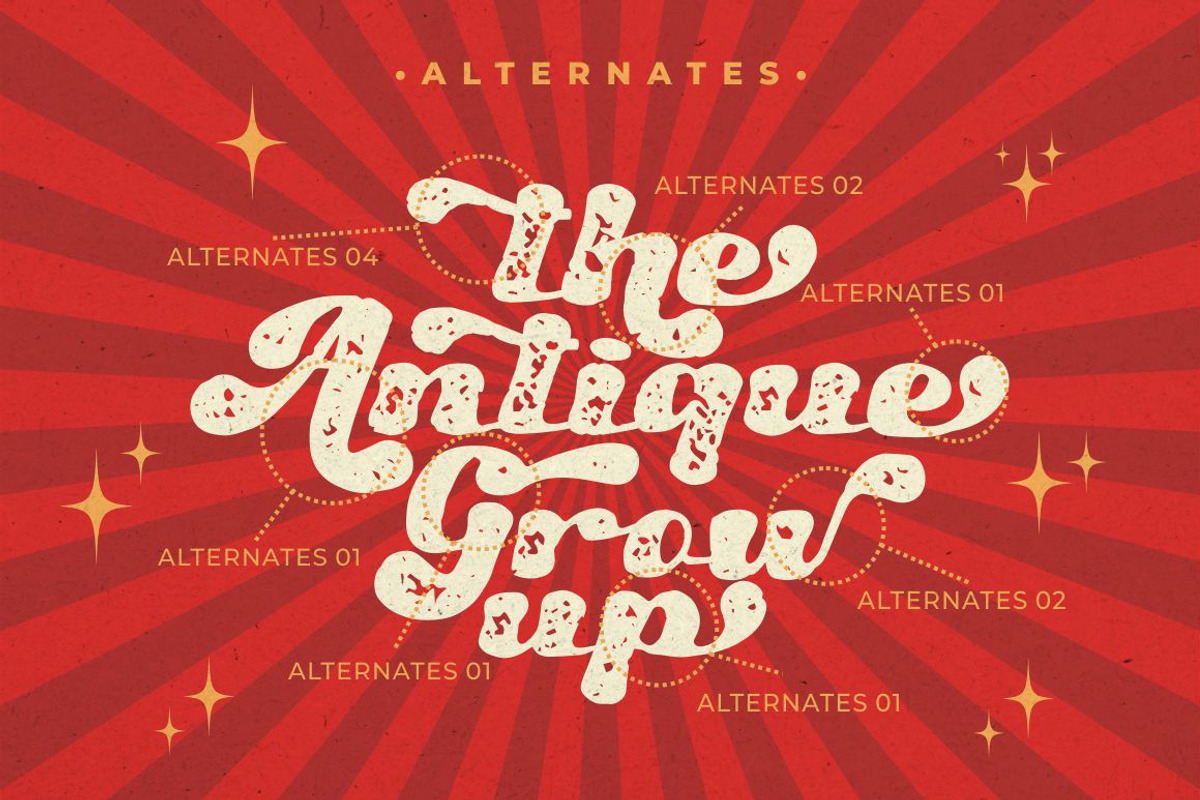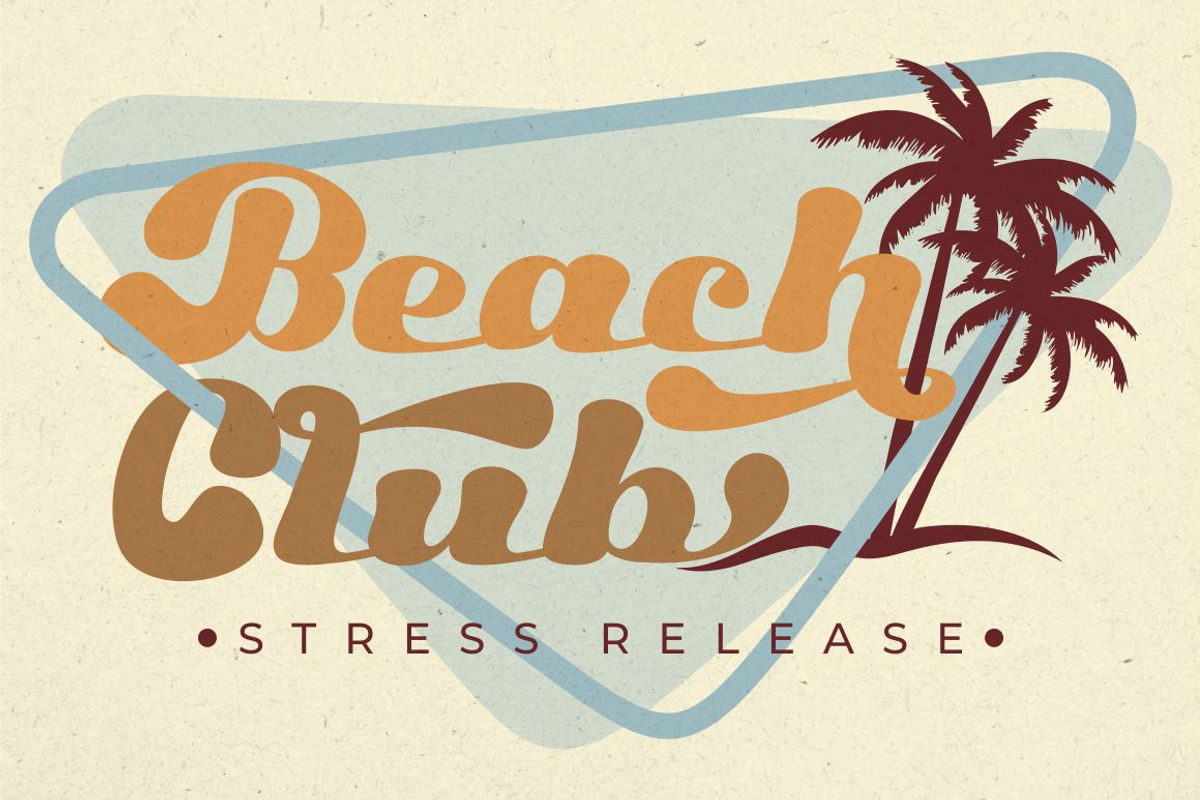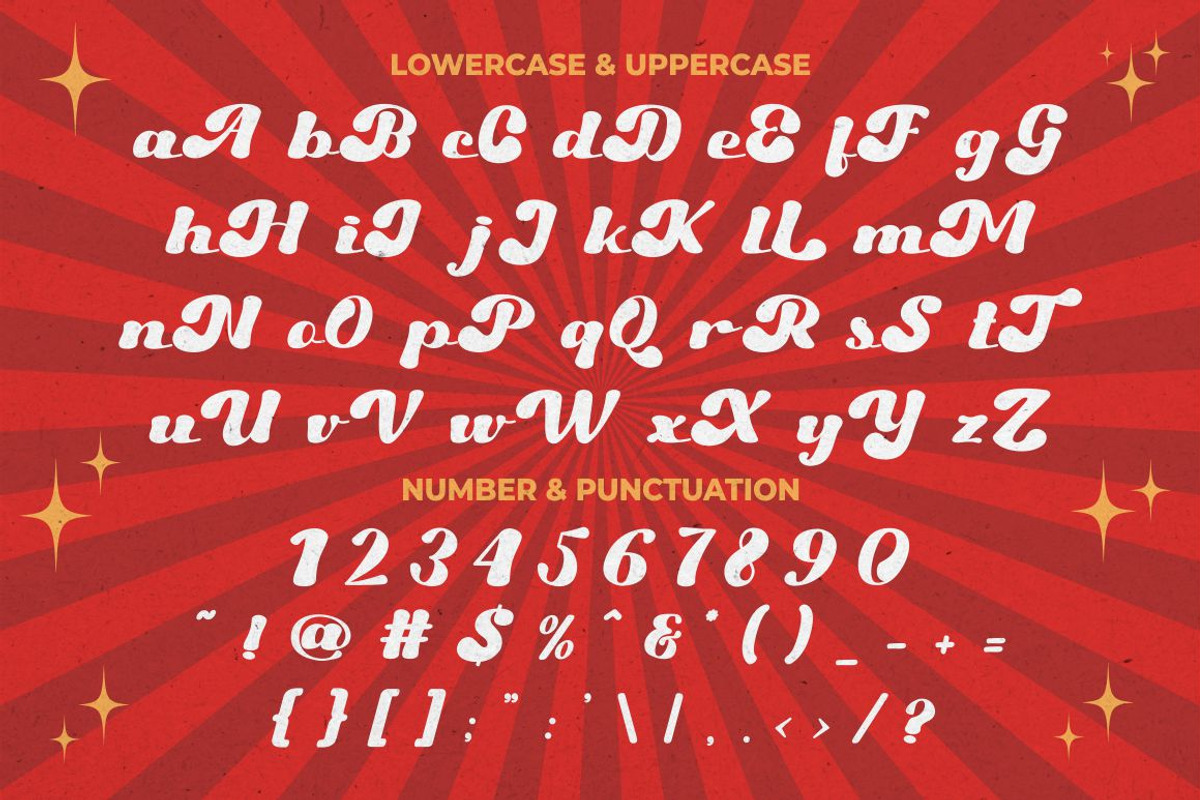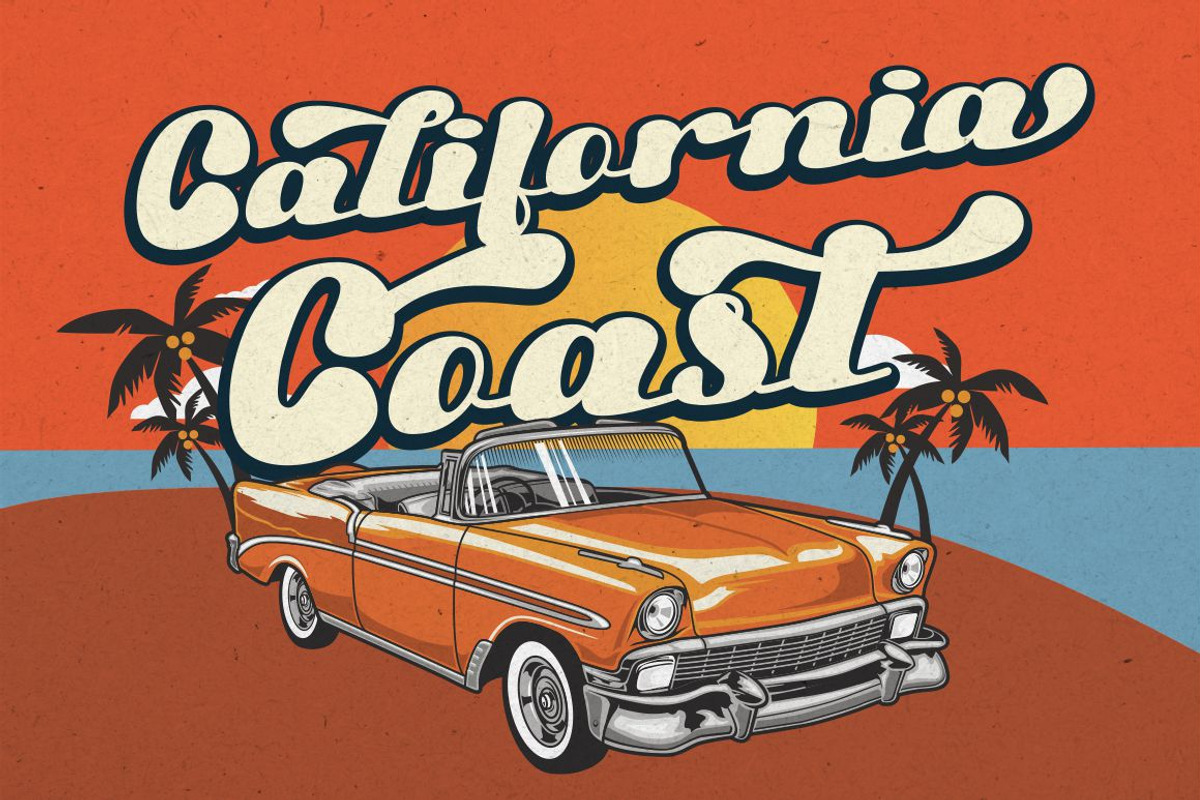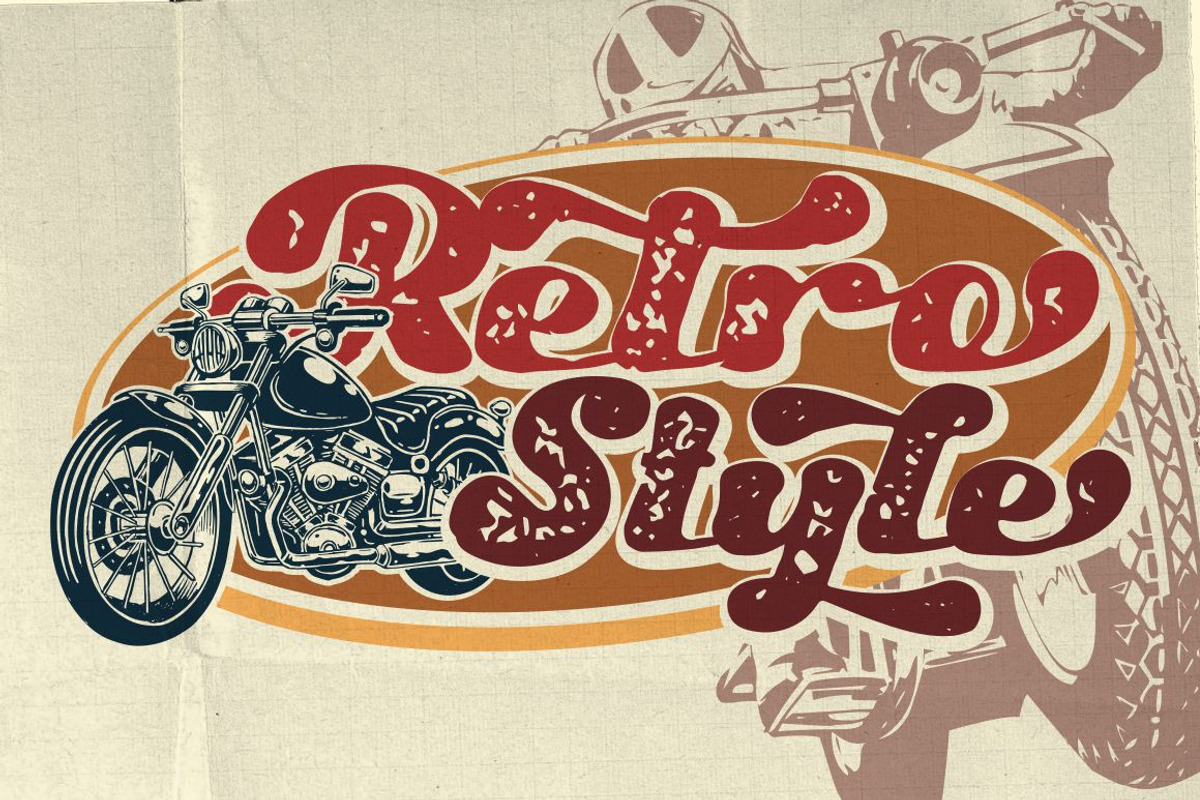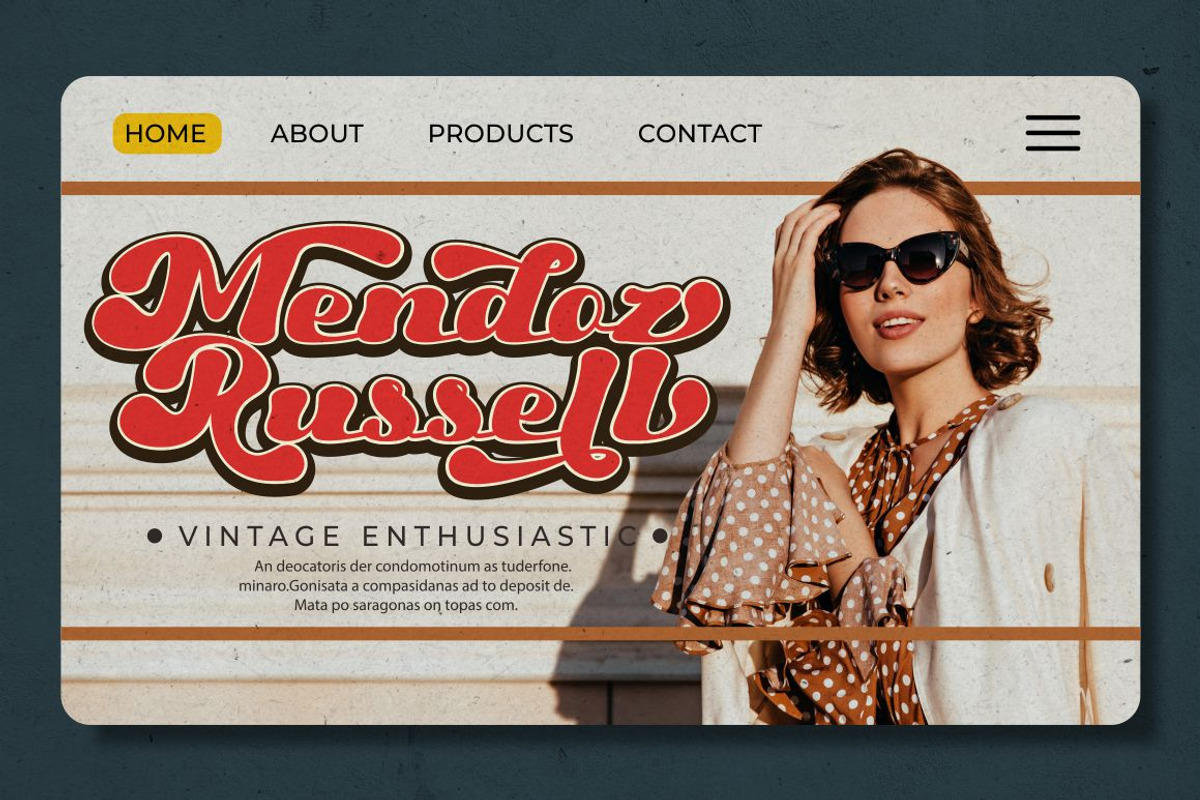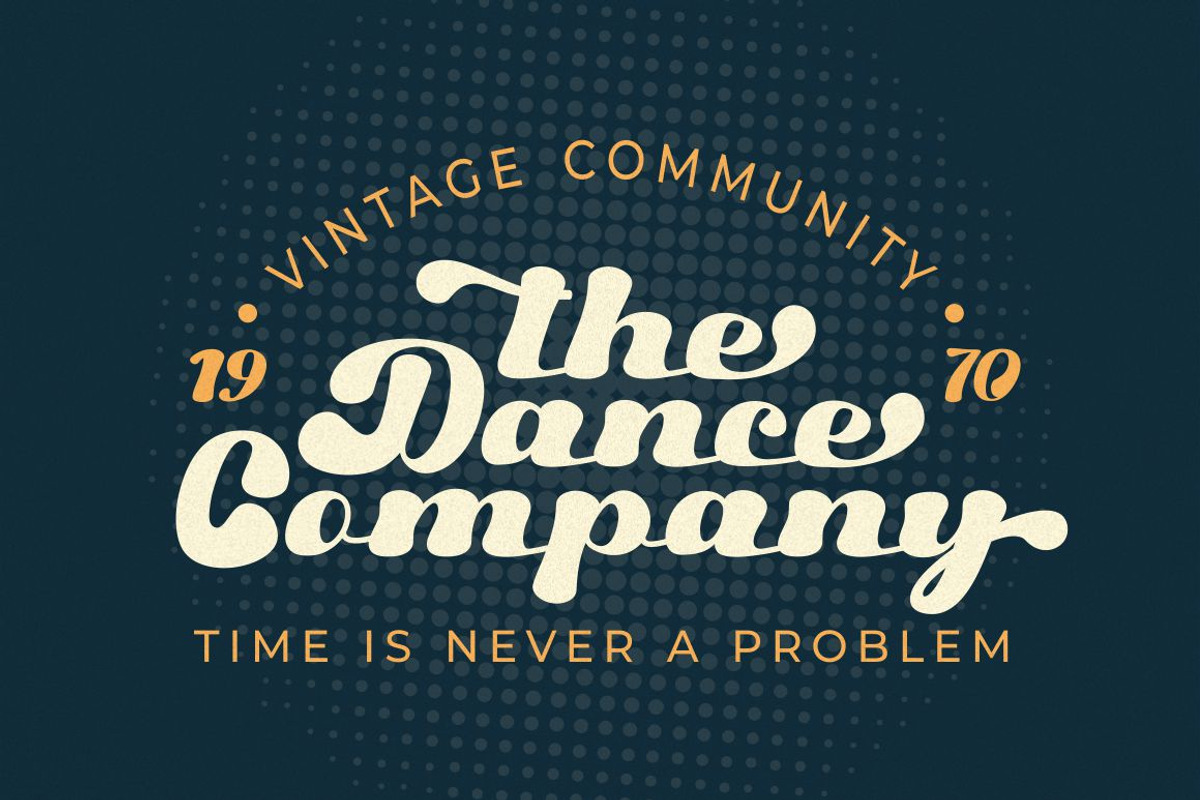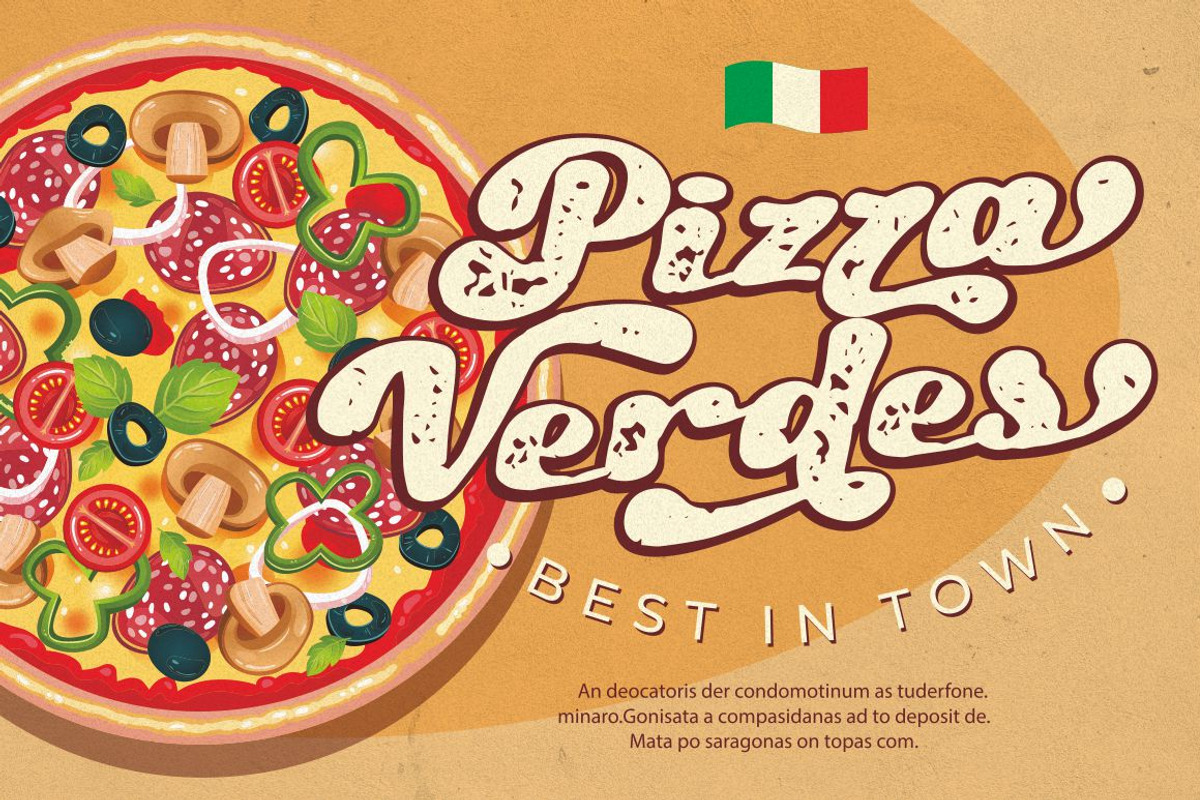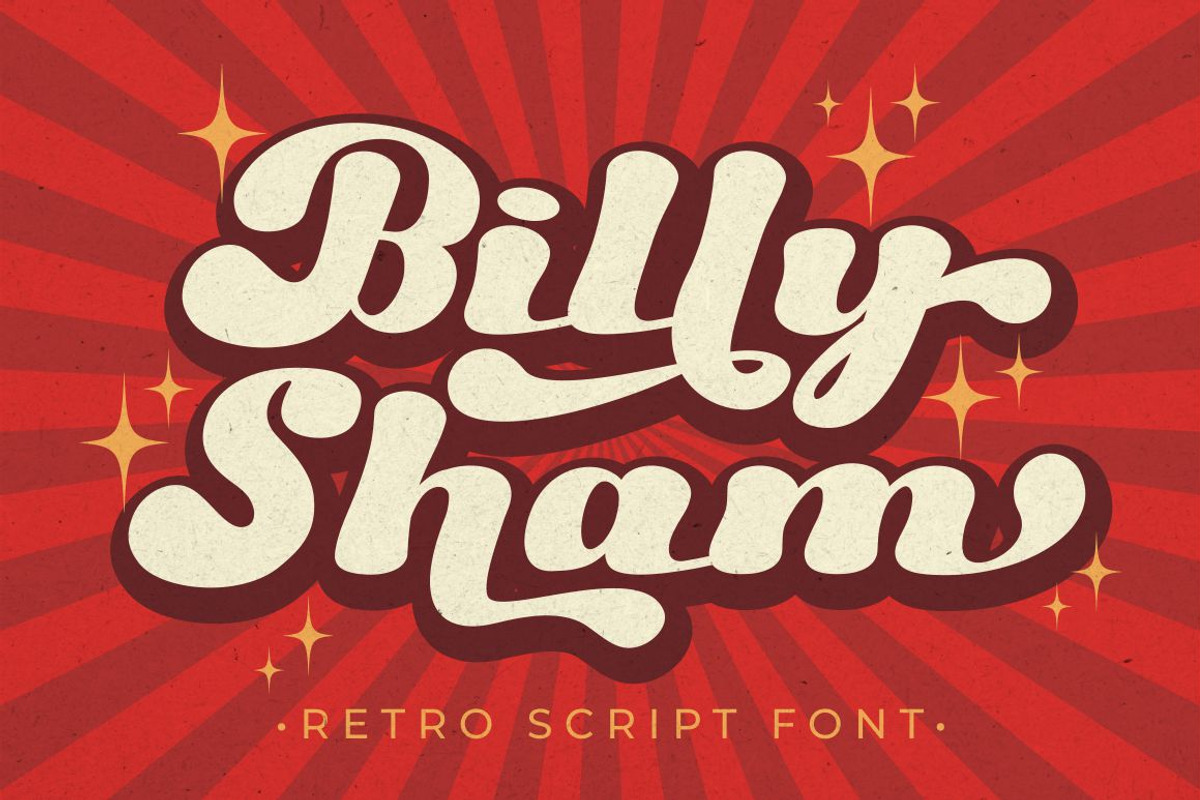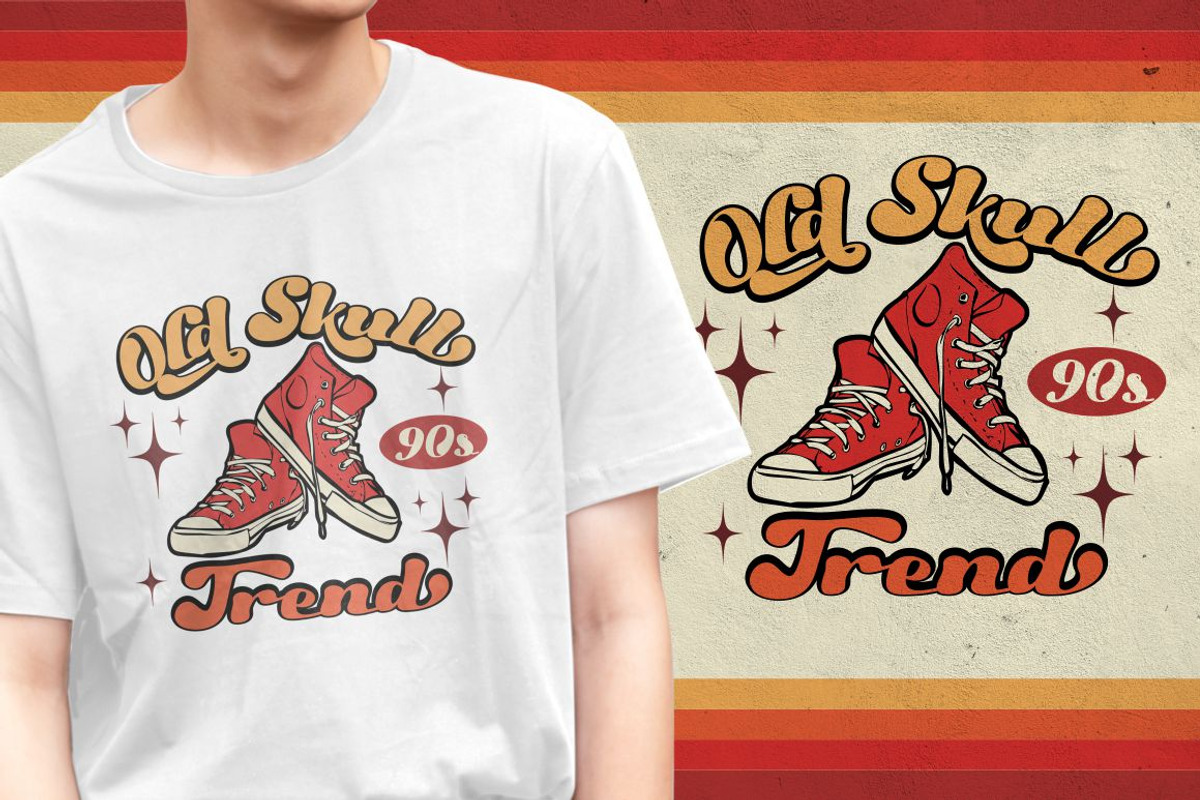
Billy Sham - Retro Script Font
Introducing a new retro font called “Billy Sham“. Inspired from retro typography and lettering in the 70’s and 80’s combine with bold typography style. With a alternate character, you can make letter combinations for lettering with a lot of options. Come with open type feature ( a lot of alternates and end swash), its help you to make great lettering. Billy Sham best uses for Logotype, heading,cover, poster, logos, quotes, product packaging, header, merchandise, social media & greeting cards and many more. This font is also support multi language.
- Opentype (Alternates And Ligatures)
- Number, Punctuation And Symbols
- Multilanguage Support.